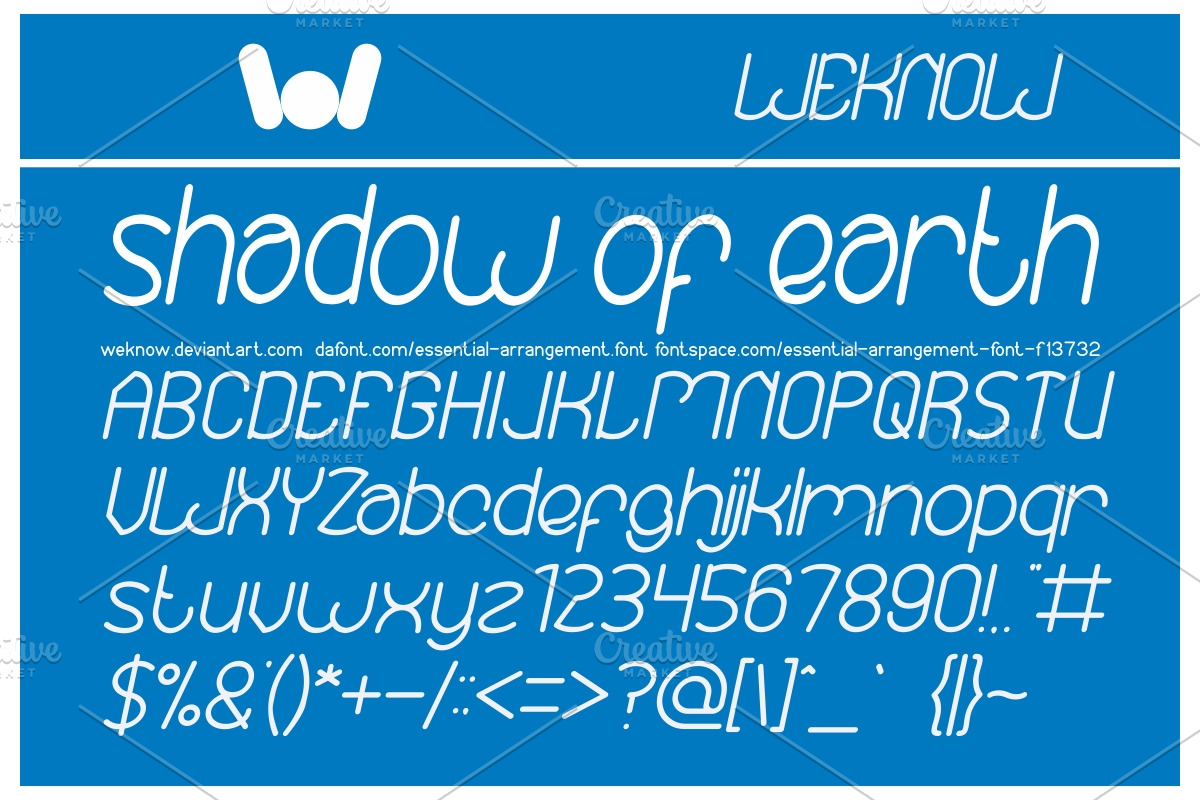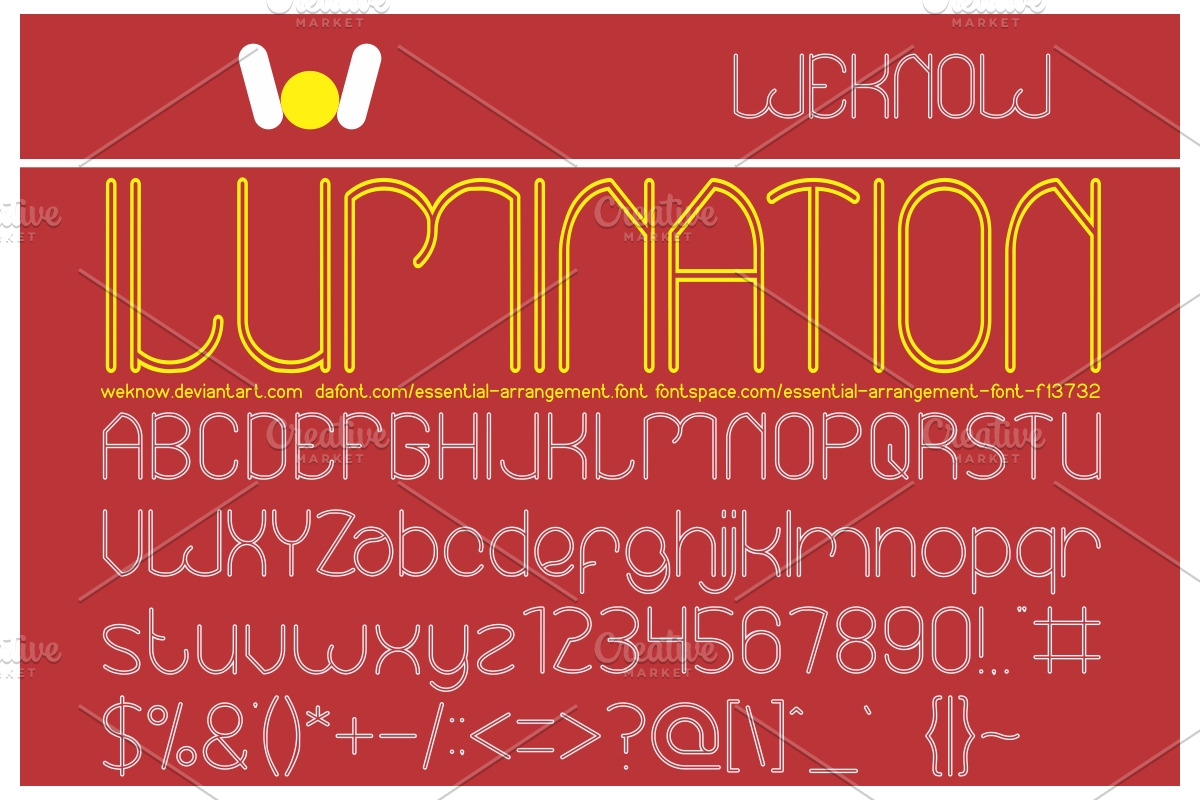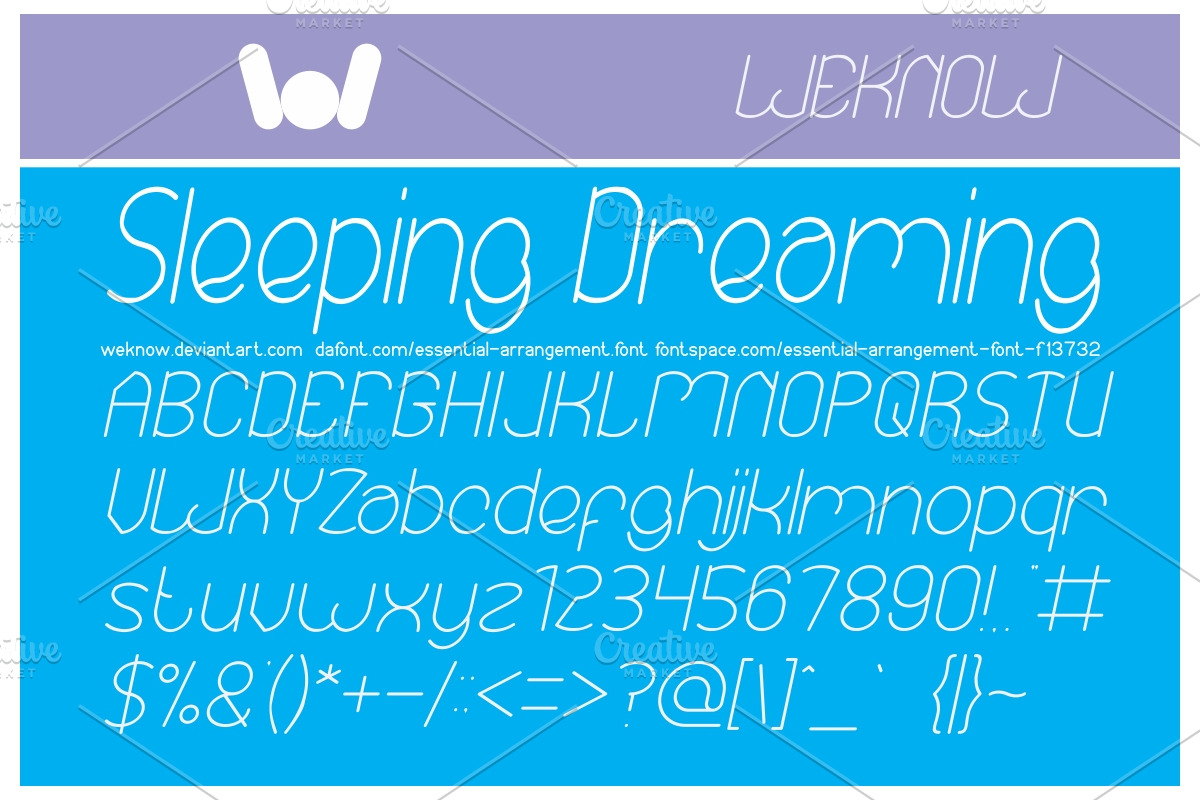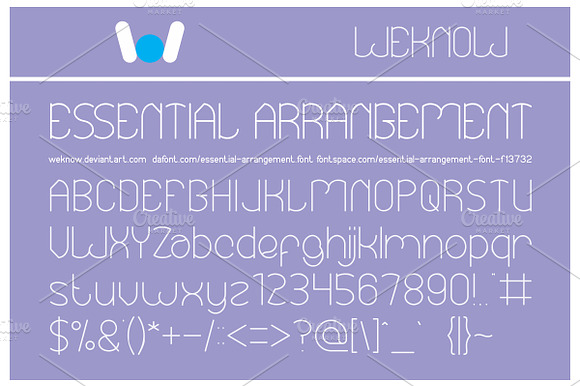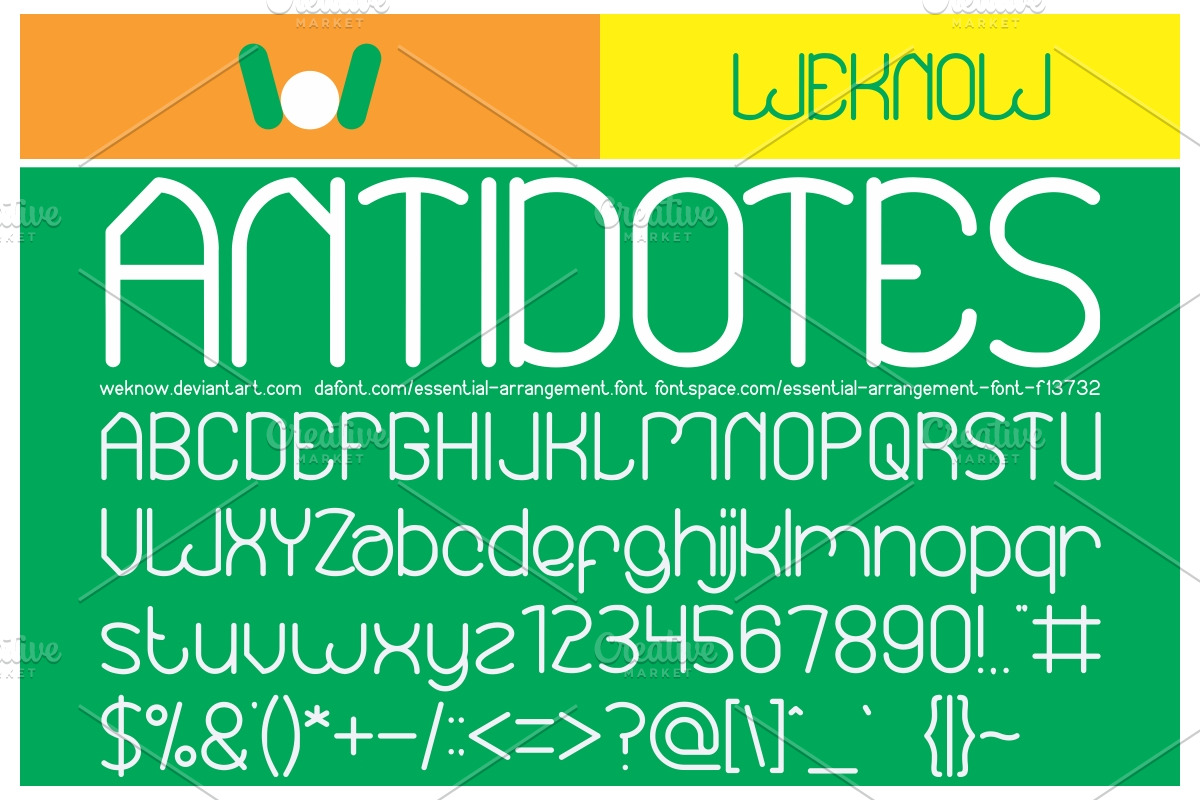
essential arrangement font
available style: Essential Arrangement-Bold, Essential Arrangement-Bold-Italic, Essential Arrangement-Hollow, Essential Arrangement-Hollow-Inverse, Essential Arrangement-Italic
Why essential arrangement font is worth a look
essential arrangement font by weknow fits naturally into Branding, posters, packaging, typography.